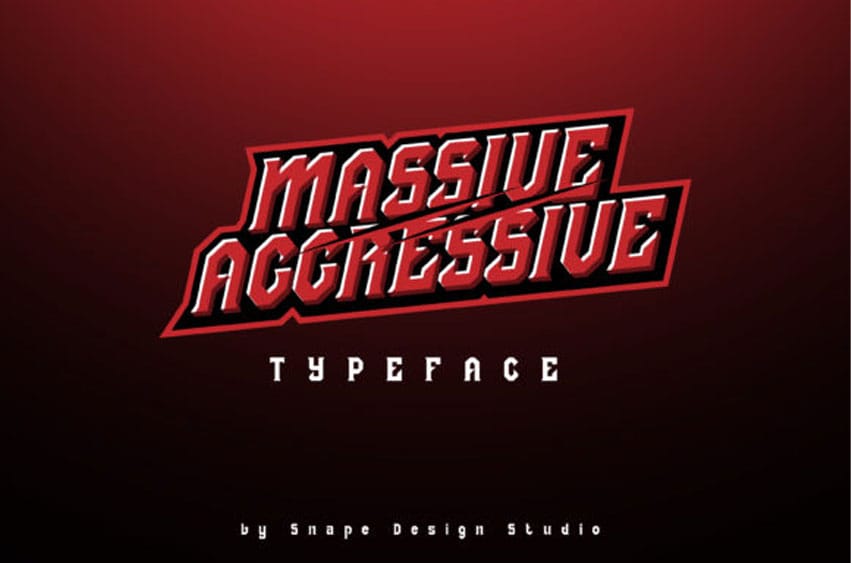
Massive Aggressive Font is a bold display font, incredibly strong and powerful.
Add it to your sporty events and notice how your designs will come up front!